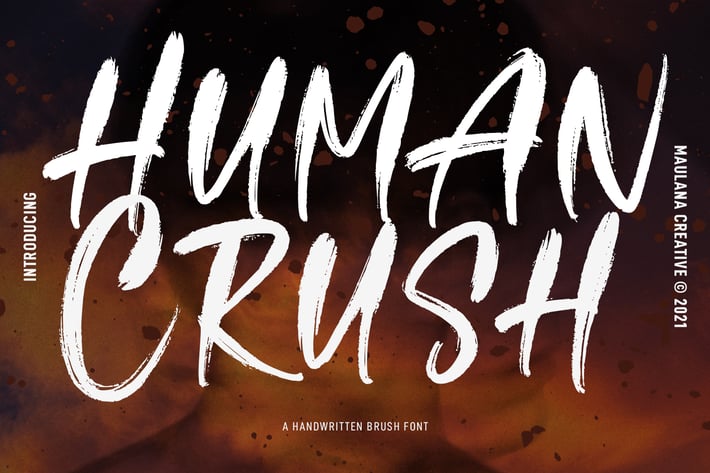
Human Crush Handwritten Brush Font
"Human Crush" is a handwritten brush Display font. With super rough brush stroke, fun character with a bit of ligatures. To give you an extra creative work. "Human Crush" font support multilingual more than 100+ language. This font is good for logo design, Social media, Movie Titles, Books Titles, a short text even a long text letter and good for your secondary text font with sans or serif. Make a stunning work with "Human Crush" font.